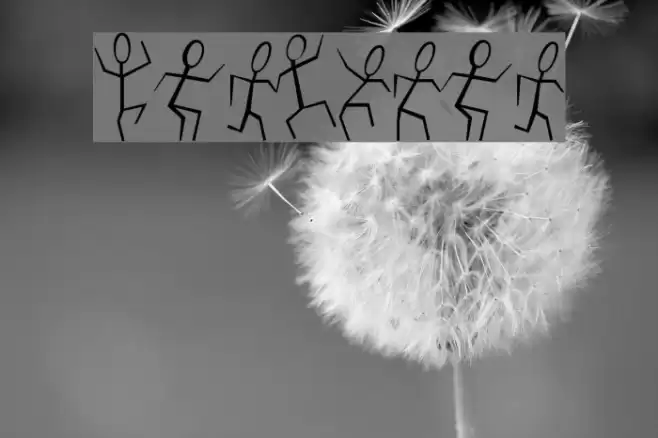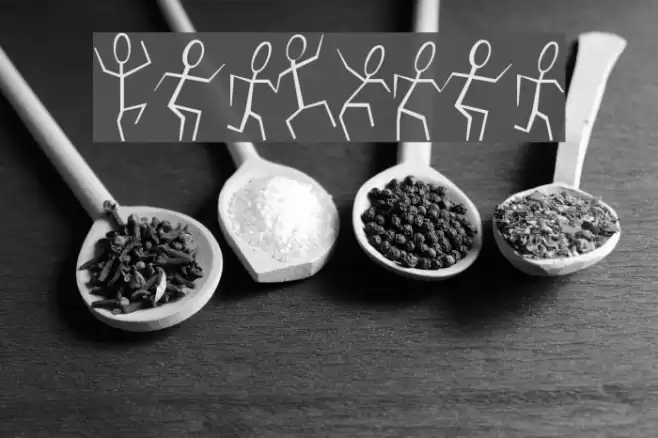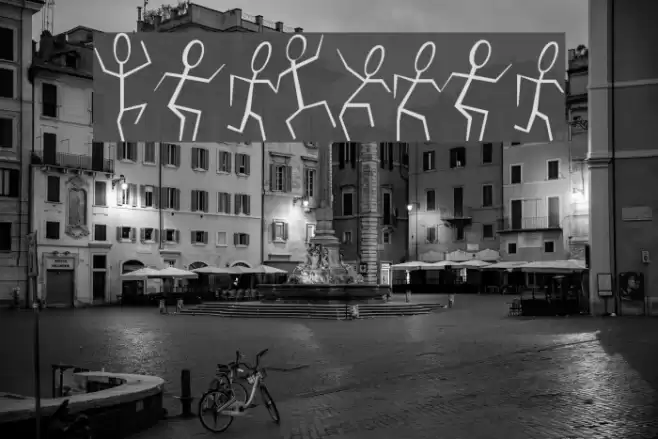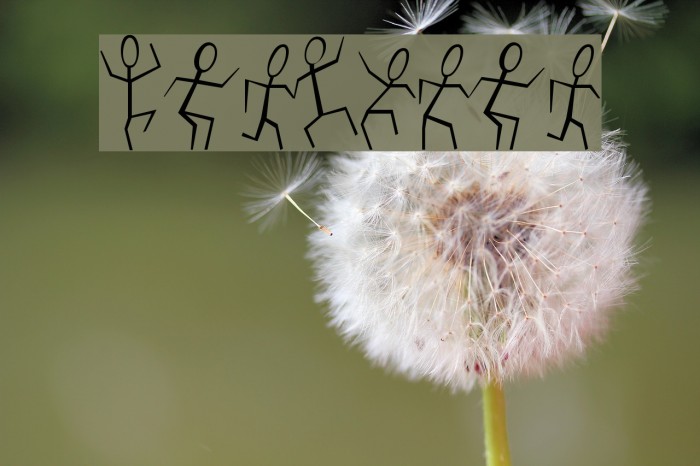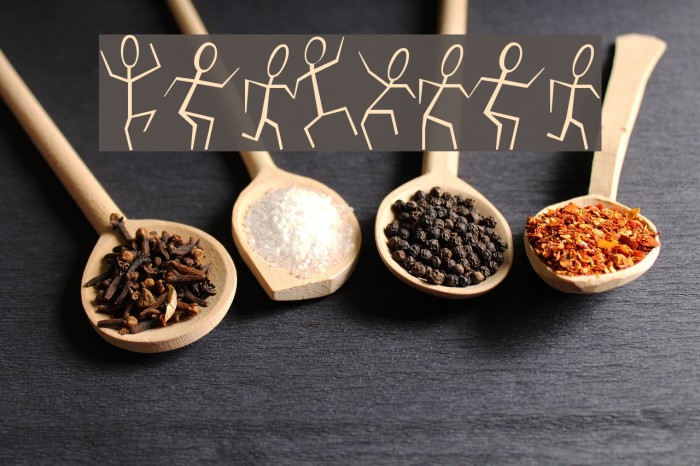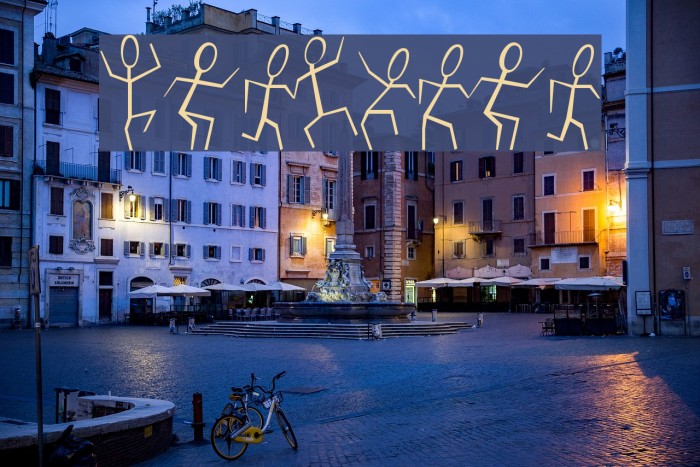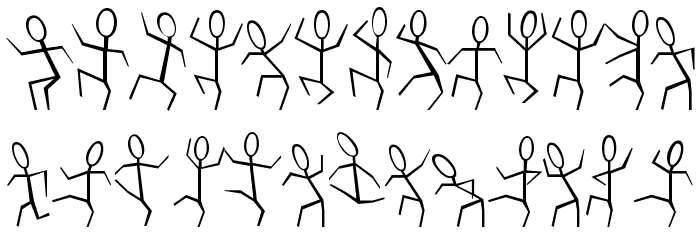
DANCEMAN Font
DANCEMAN Description
A playful and whimsical font where each character is represented by a stick figure in a unique dancing pose, giving a lively and animated appearance. The glyphs are highly illustrative and non-traditional, focusing on expressive movement rather than legibility.
Animated stick figures form each character, creating a fun and energetic style from Images & Symbols fonts.
- Proposed Projects: Children's party invitations, playful posters, dance event flyers, creative branding, educational materials for kids.
- Overall Style: Decorative, Playful, Whimsical
- Use Case: Logos, Headlines, Posters, Event Flyers